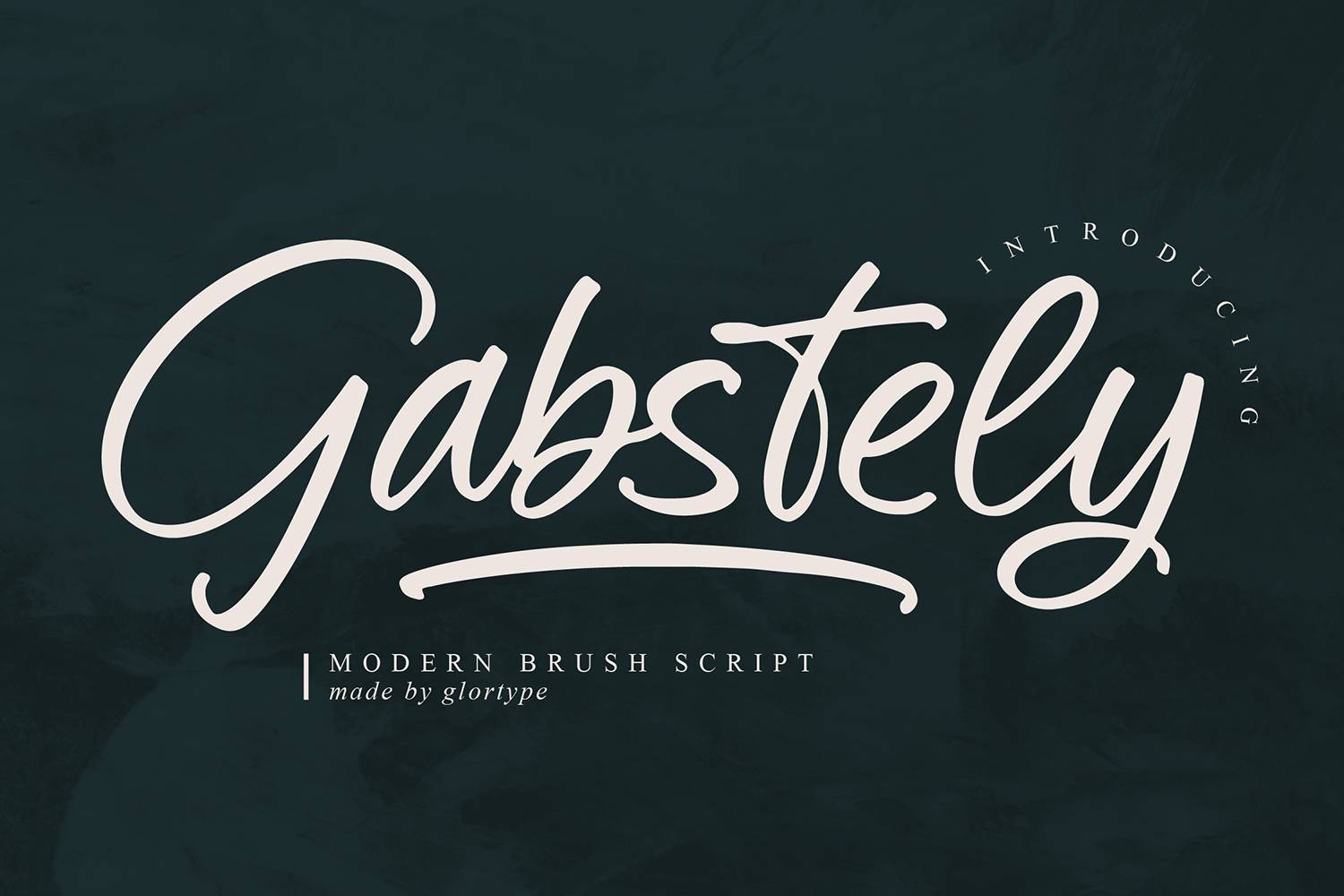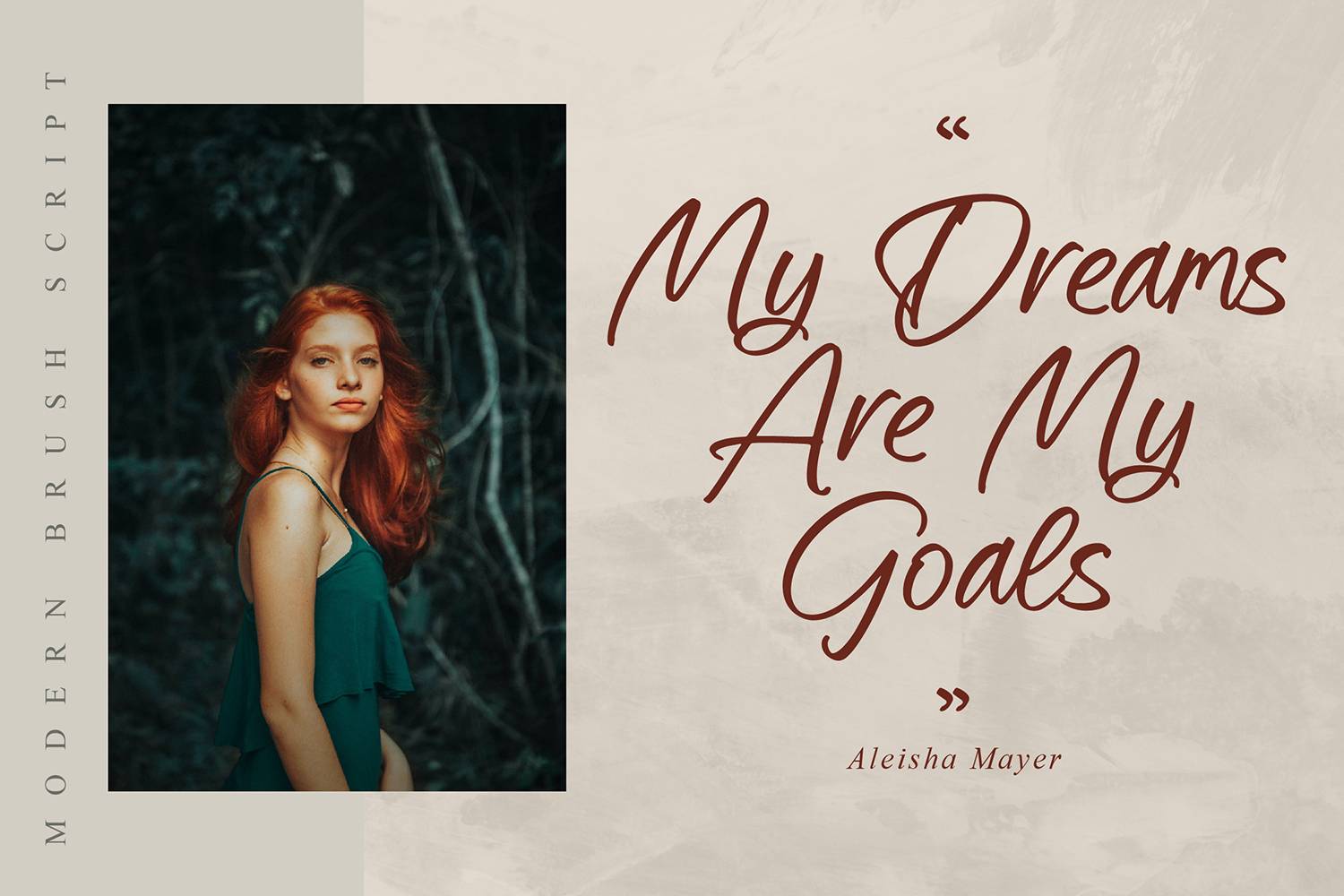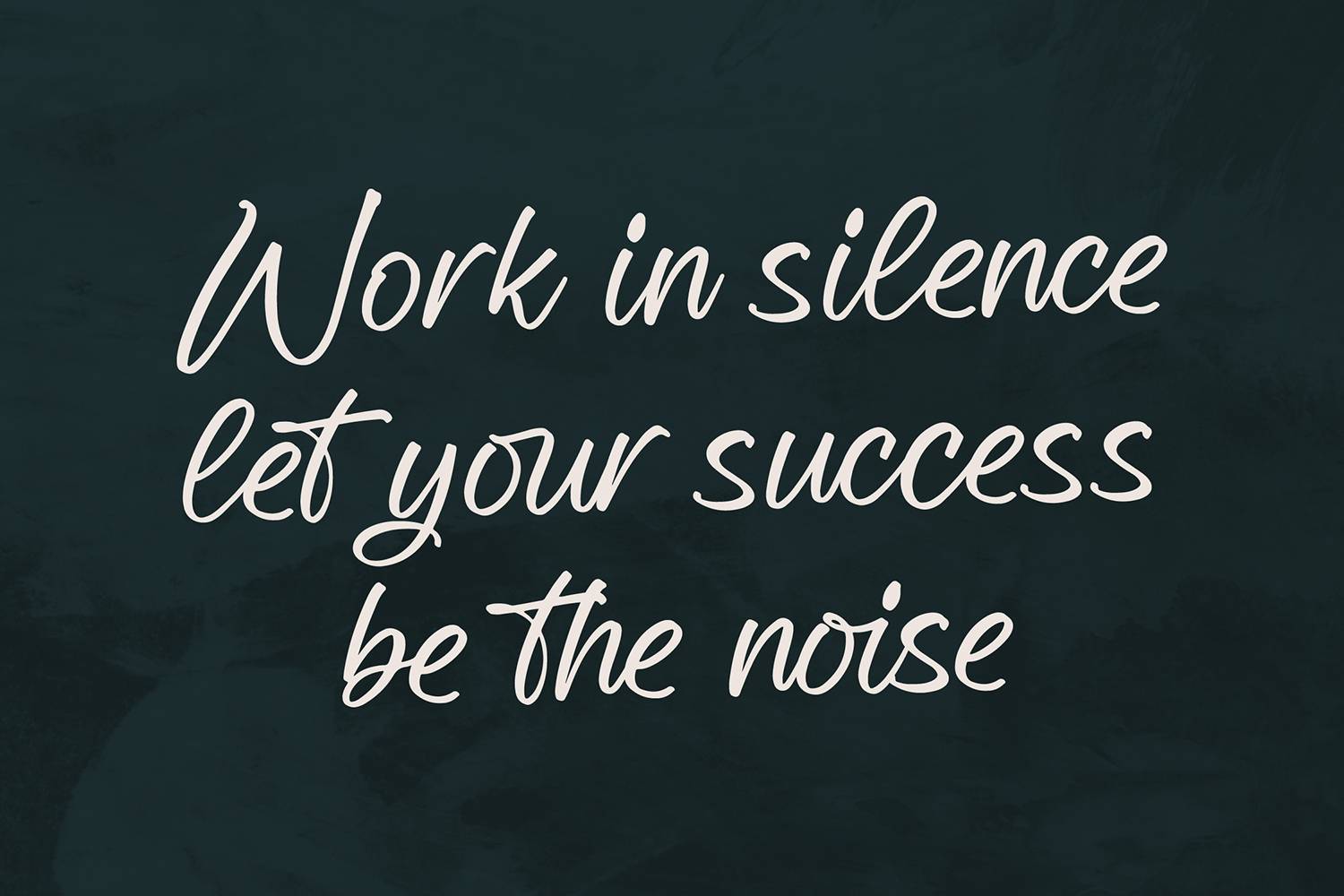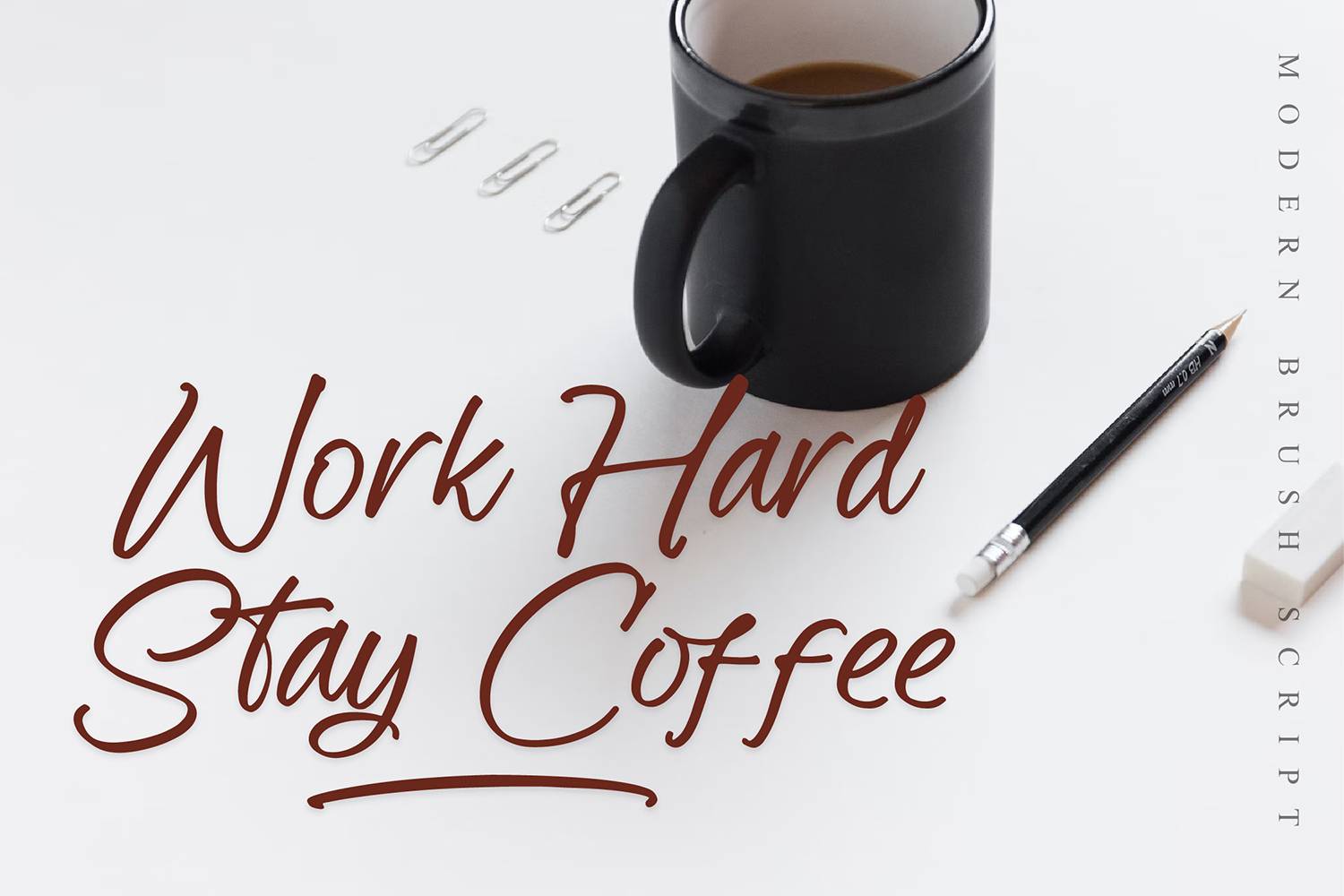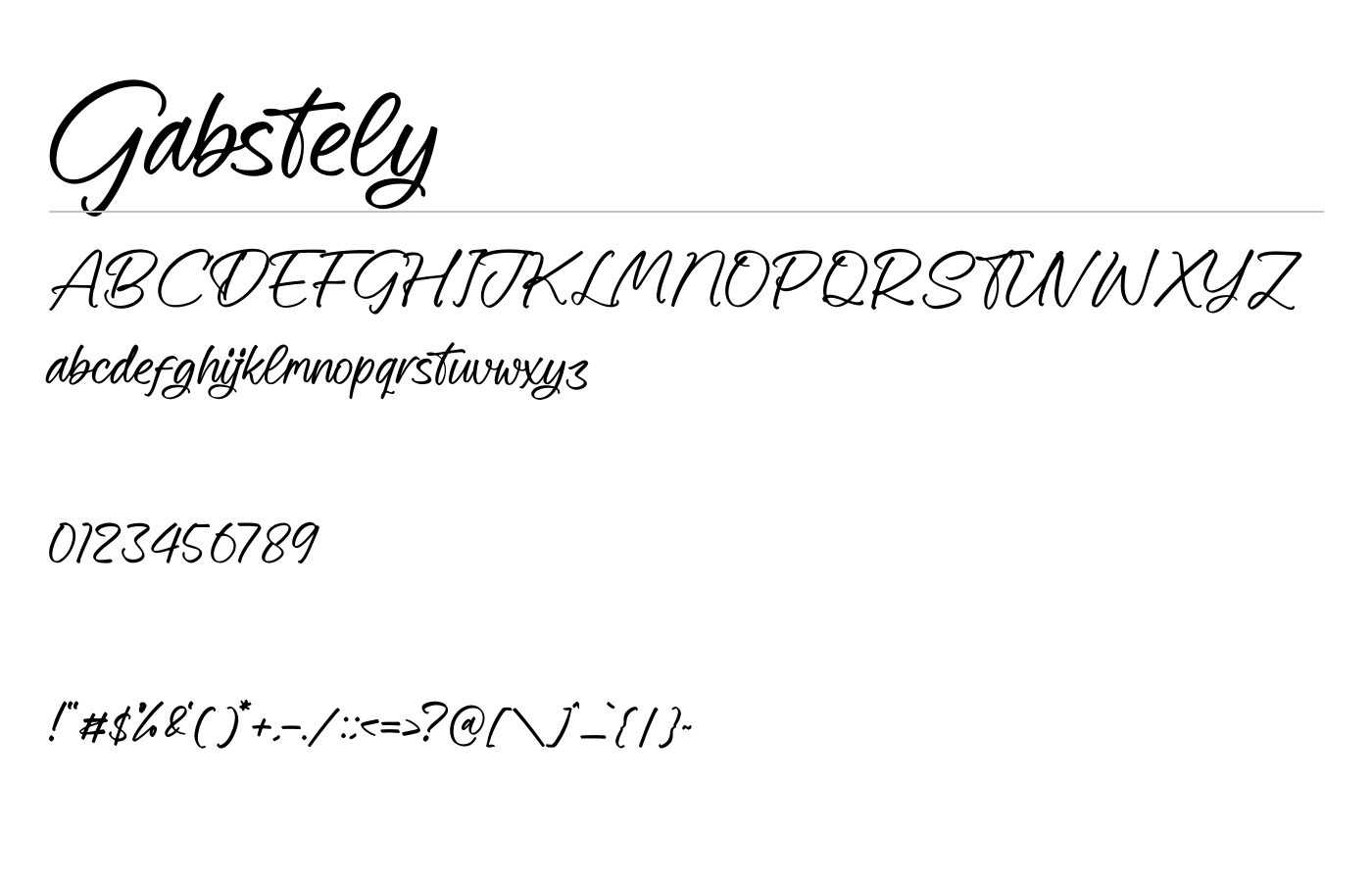
Gabstely is a graceful script font with a flowing, handwritten style that combines elegance with a casual charm. Its slender strokes and slightly varied letterforms create a natural, personal touch, making it ideal for invitations, branding, and creative projects seeking a sophisticated yet approachable look. This font works well for headlines and decorative text where a stylish and friendly feel is desired.
Gabstely Font
About Gabstely Font